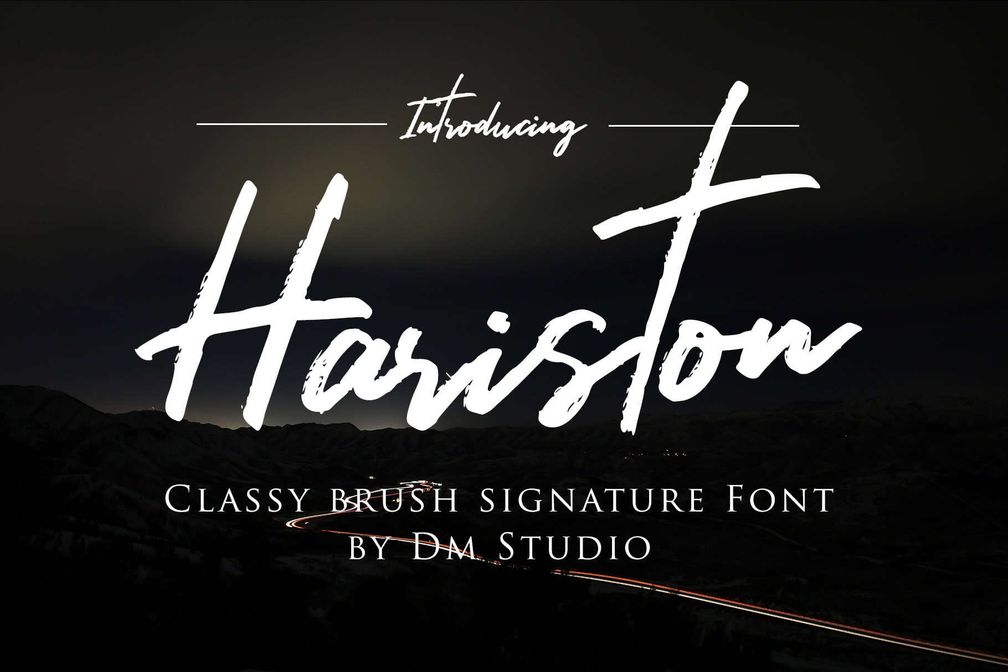
Hariston Font
Hariston is a Classy Brush Signature Font that exudes elegance, sophistication, and artistic flair. Designed to mimic the natural flow of a hand-painted signature, this font features smooth strokes, stylish curves, and a touch of modern luxury. Perfect for branding, wedding invitations, business cards, social media, and creative projects, Hariston adds a personalized, high-end feel to any design.
• Elegant Brush Signature Style: A refined, handwritten script with a natural, flowing brush texture.
• Perfect for Branding & Invitations: Ideal for logos, wedding stationery, business signatures, and more.
• Smooth & Stylish Letterforms: Crafted for a high-end, sophisticated look with a handwritten touch.
• Ligatures & Alternates: Includes stylish ligatures and alternates for a more authentic handwritten feel.